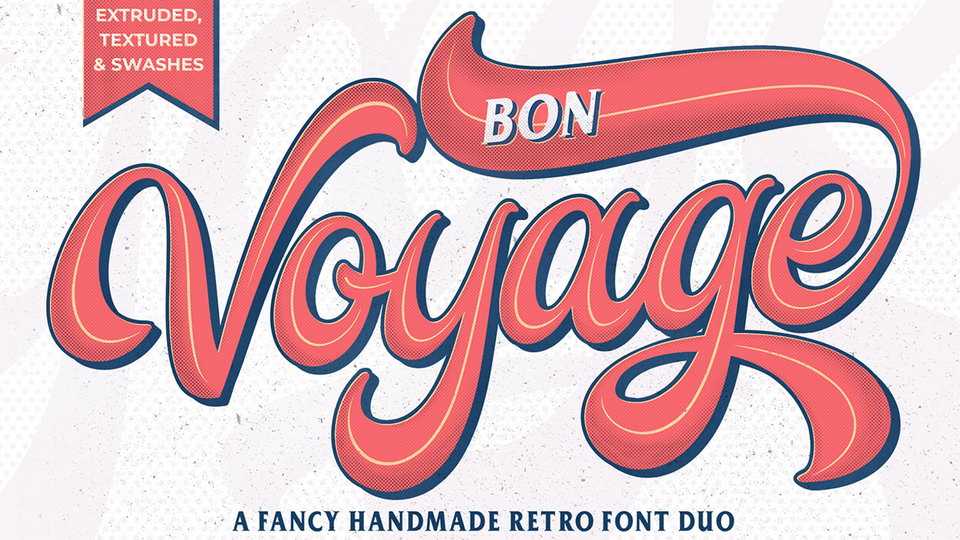
Bon Voyage Script Font › Fontesk – Download Grátis
Download Bon Voyage font – a brilliant script inspired by popular retro handlettering in the 70’s added with a touch of pop style, this font looks unique and elegant. This handmade font is made with several precision layers with a total of 526 glyphs.